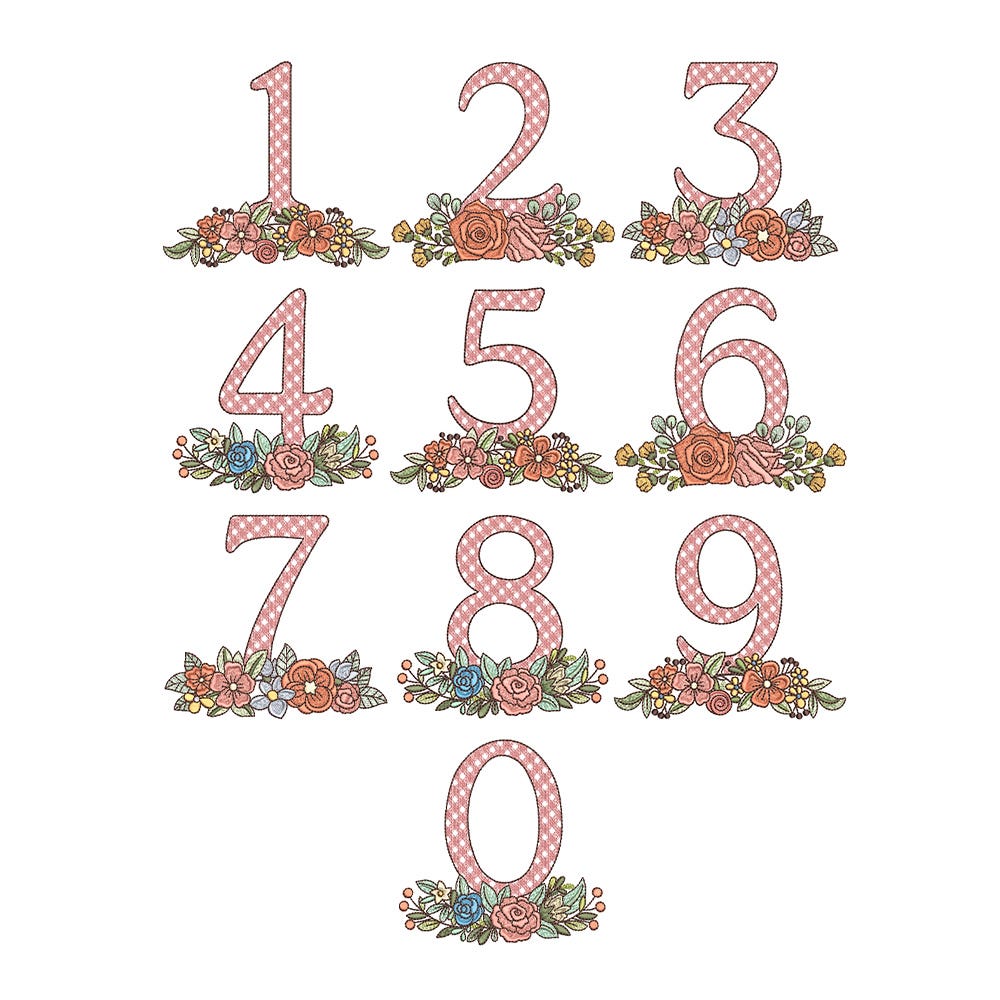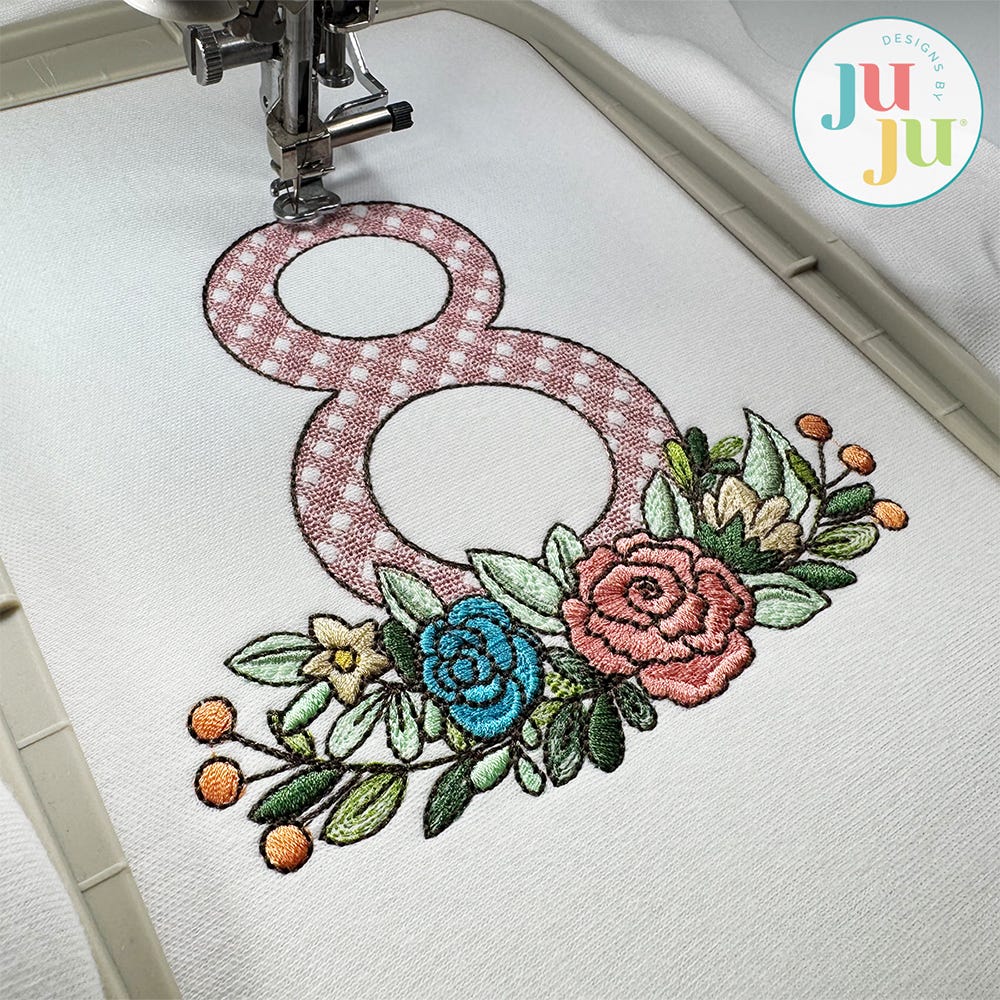
Floral Bouquet Sketch Embroidery Numbers
Add a touch of floral charm to your stitching projects with our embroidery-only Floral Bouquet Numbers!
The motif fill stitch numbers are accented with beautiful bouquets of embroidered flowers.